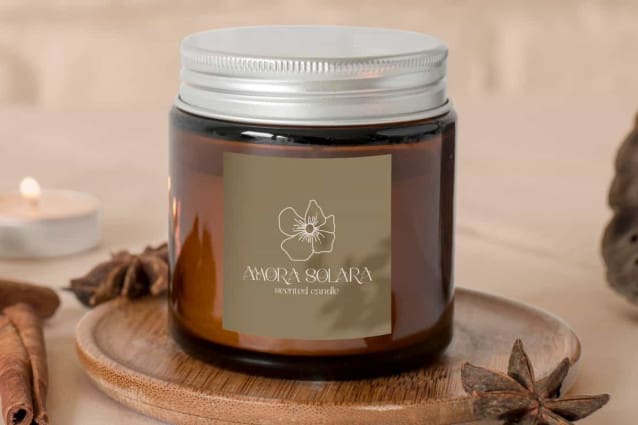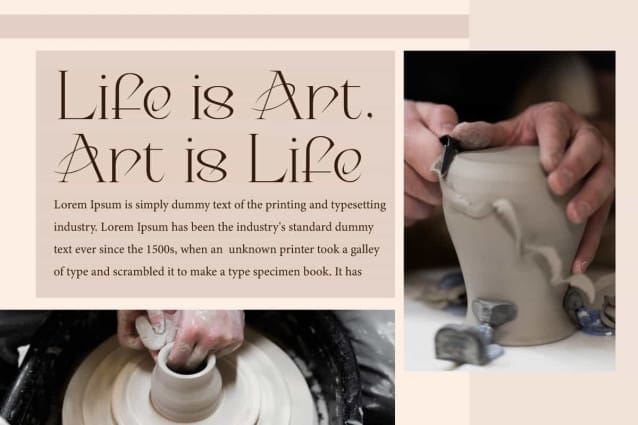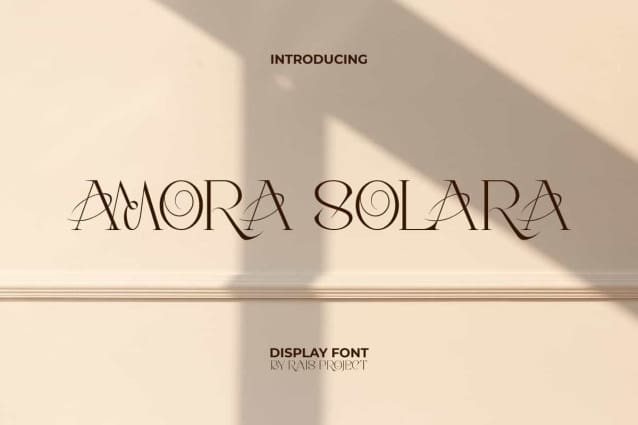
Amora Solara Font
Amora Solara Font is a beautiful splendid serif display font, created by RaisProject. This font leaves a charming impression because of its minimalist and beautifully flowing lines. It will be good for any designs, such as brand image, cover, custom design, flyer, invitation, label, magazine, marketing material, menu, poster, product packaging, quotes, signage, stationery, website page, and more!
Amora Solara Font including a complete set of Uppercase and Lowercase basic characters, Numerals, and large range of Punctuation. This font also suitable for various industries, such as advertising, beauty product, cafes, event or wedding organizer, fashion, florist, home furniture, marketing, photography, printing, publishing, spa and salon, etc.